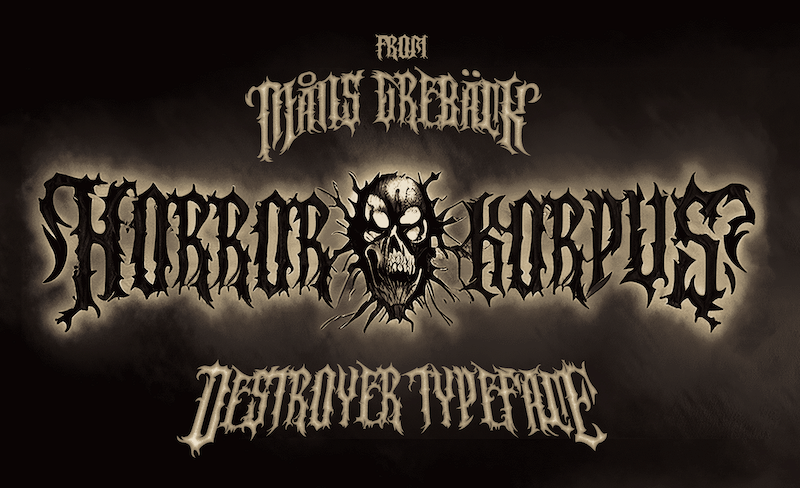
Preview and download Horror Korpus Font. Created by Måns Grebäck in Fancy Horror styles with Free for personal use license.
NOTE: This font is for PERSONAL USE ONLY! To purchase a commercial license, visit: http://mn.sg/horror-korpus Horror Korpus is an artistic rebellion, a statement against the clean and the pristine. It is the indisputable choice for a heavy metal logo and horror movie posters, adding a fiery and dark dimension to your designs. Write % after any word to make it into a symmetric logo. Example: Monogram% (Download required.) Use ( ) { } [ ] < > around any word to give it wings. Example: Use � � � � � � ≠ � ~ to make demonic symbols like devils and skulls. Example: scary�movie For questions, please visit www.mansgreback.com/faq |